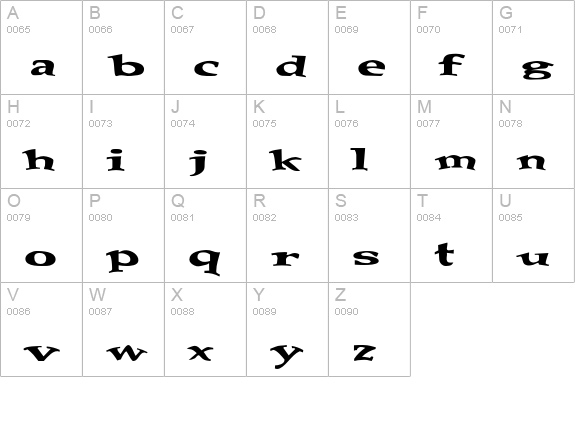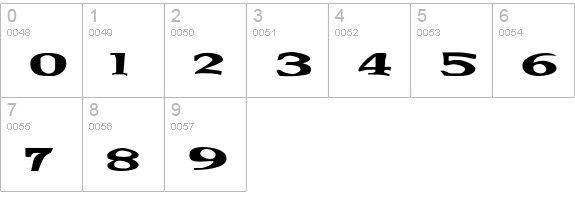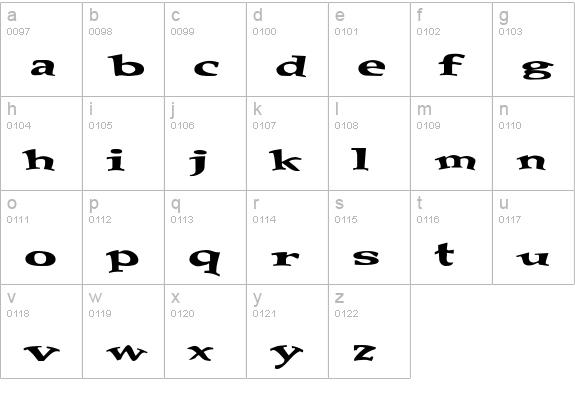
Introducing Messaround font, a playful and quirky typeface that exudes creativity and fun. With its unique design and whimsical charm, Messaround is perfect for adding a touch of personality to any project. Whether you're working on a poster, logo, or social media graphic, this font will surely make your text stand out. What's even better is that Messaround font is completely free to download at FontsMarket.com. Yes, you read that right - you can unleash your creativity with this fantastic font without spending a dime. So go ahead, download Messaround today and let your imagination run wild!